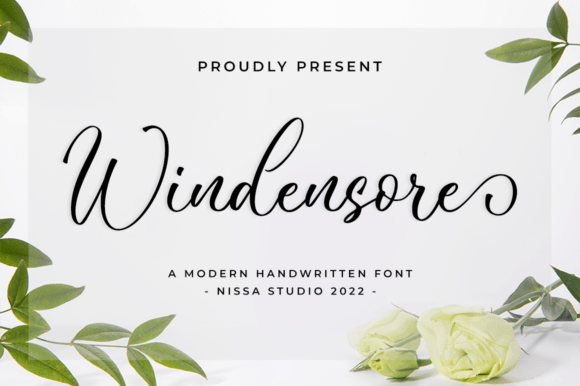
Journey into the realm of elegance and sophistication with Windensore Font, a mesmerizing script that dances across your designs with a captivating charm. Inspired by the allure of handwritten notes, this font exudes a touch of individuality and grace that will leave a lasting impression on your creative endeavors.
Imagine your designs adorned with the flowing strokes and delicate curves of Windensore Font. Its timeless beauty effortlessly elevates any project, whether it's a heartfelt memorial card, a heartfelt invitation, or a stunning branding design. The unique feel and stunning impact of Windensore Font will add a touch of luxury and sophistication that will make your creations shine.
With Windensore Font, you have the power to express yourself in a way that's both personal and profound. Its PUA-encoding opens up a world of possibilities, allowing you to effortlessly access a range of glyphs and ligatures that add depth and character to your designs. Unleash your creativity and craft designs that resonate with your audience, leaving them captivated by your attention to detail and flair for the extraordinary.
Discover the magic of Windensore Font today and elevate your designs to new heights. Let your words flow with grace and elegance, leaving an everlasting mark on those who encounter your creations.